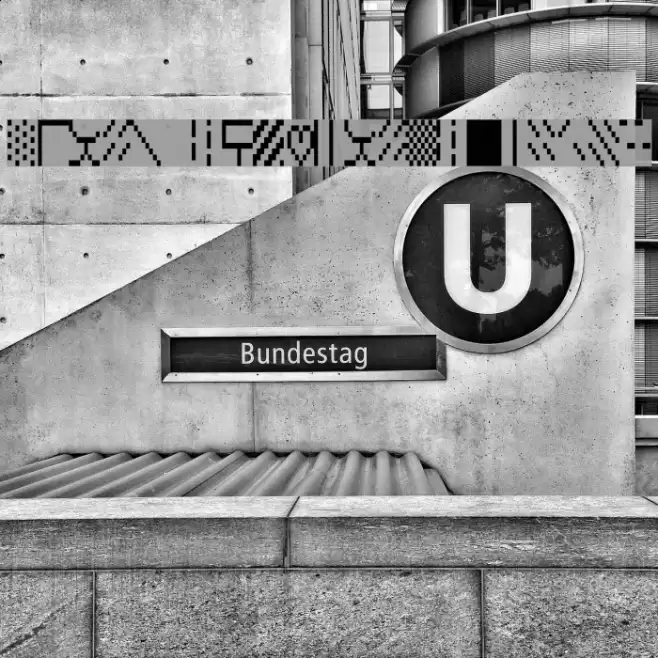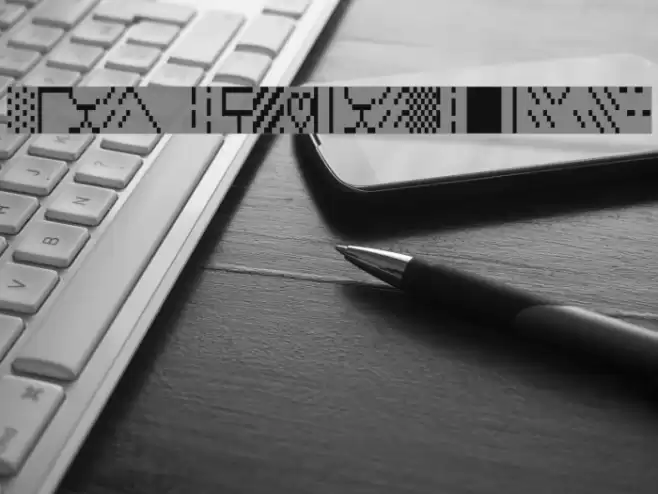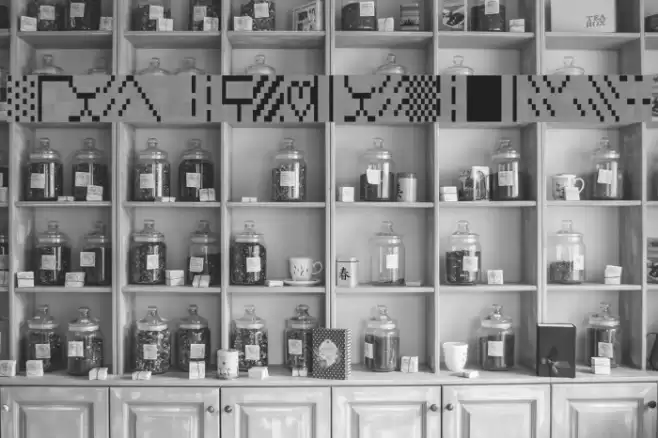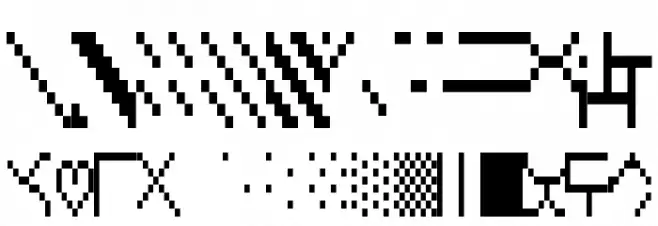
LisaSketch Paper 2X3Y Font
LisaSketch Paper 2X3Y Description
This image does not depict a valid font. Instead, it appears to be a collection of abstract patterns and shapes that do not form recognizable alphanumeric characters. The elements are composed of pixelated, geometric designs with varying levels of density and complexity. These designs are arranged in a grid-like format, but they do not correspond to any known typographic system or character set.
The image contains abstract patterns, not a valid font from Uncategorized fonts.
- Proposed Projects: This design could be used for abstract art projects, digital artwork, or as a background texture in graphic design.
- Overall Style: Abstract
- Use Case: Artistic designs, Background textures